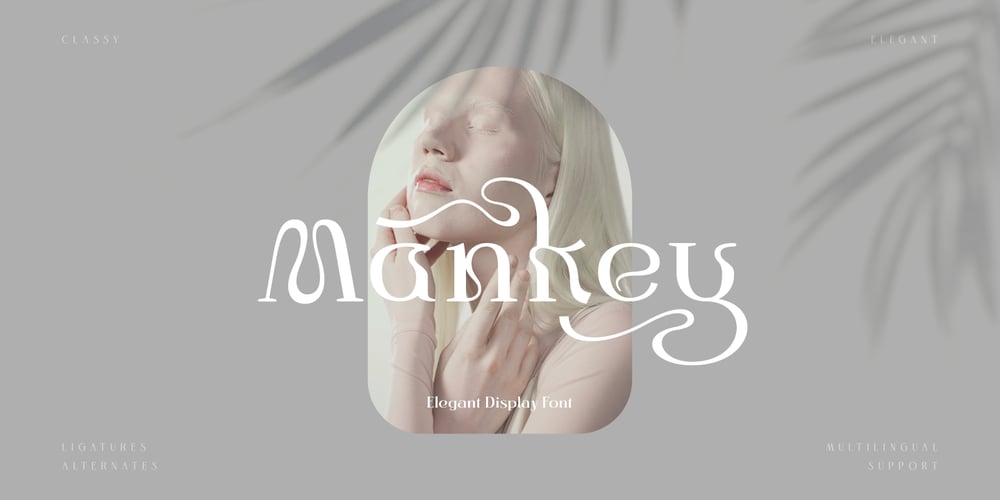
Mankey Font Family was designed by Alit Suarnegara and published by Alit Design. Mankey contains 1 styles and family package options. Introducing Mankey TypefaceThe Mankey Typeface is made with the concept of a modern font display that gives a unique impression because it has a curvy shape like waves that is charming and unique. The serif style adopted by the Mankey font is a 2022 style font, has a unique swash alternative, has a large selection of ligatures. In addition.Serif typefaces such as “ Mankey typeface” are very easy to apply to any design, especially those with an elegant and smooth concept, besides that this font is very easy to use both in design and non-design programs because everything changes and glyphs are supported by Unicode (PUA).The Mankey typeface contains 704 glyphs with many unique and interesting alternative options. In the poster preview all the letters are in the Mankey typeface.